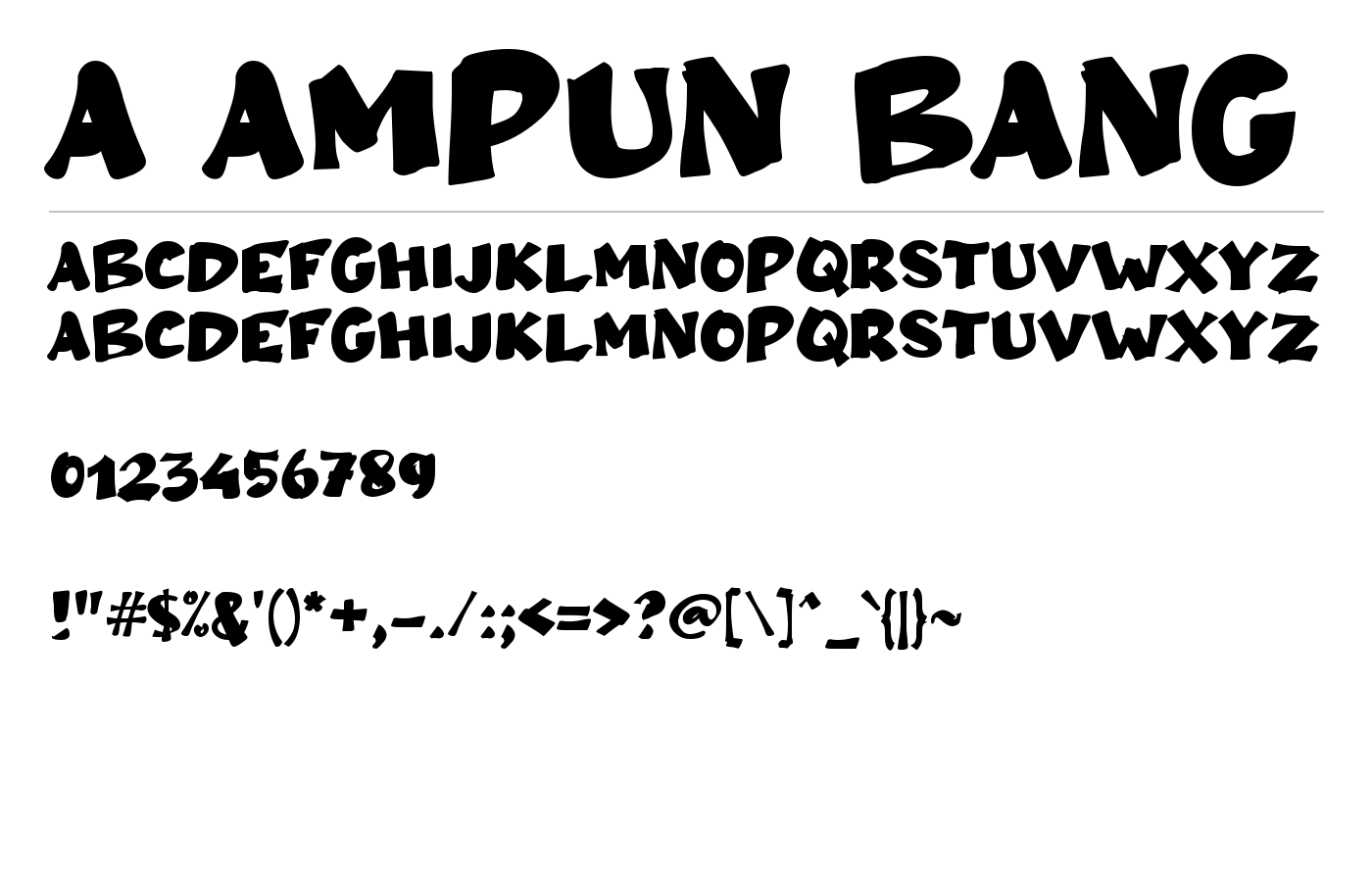
A Ampun Bang is a bold, playful sans serif font with a casual, hand-drawn feel. Its irregular shapes and thick, uneven strokes give it an energetic and friendly personality, making it ideal for informal designs like children’s books, posters, or fun branding projects. This font works best in headlines and display uses where a lively and approachable vibe is desired.
a Ampun Bang Font
About a Ampun Bang Font